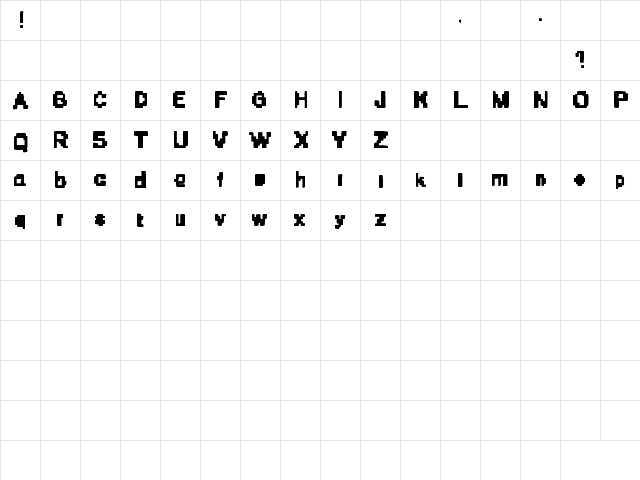
Stone Era Pixels Regular
Design Context for Stone Era Pixels Typeface
Stone Era Pixels celebrates the constraints of early digital type, turning pixel geometry into a distinctive and immediately recognisable style.
Well-suited to indie game interfaces, retro computing aesthetics, and pixel art-adjacent design work.
Pro Tip: Use Stone Era Pixels at sizes that align with its pixel grid for the sharpest rendering — scaling to non-integer multiples can introduce unwanted blur.